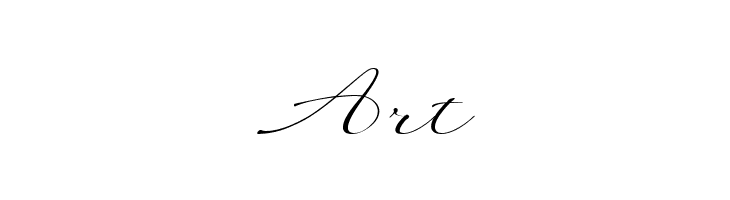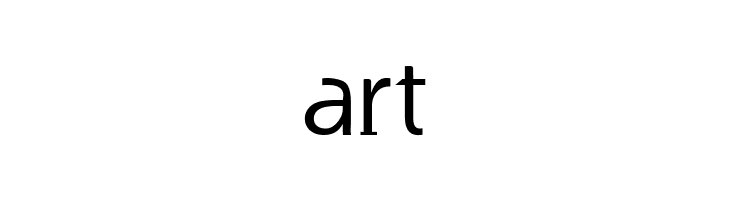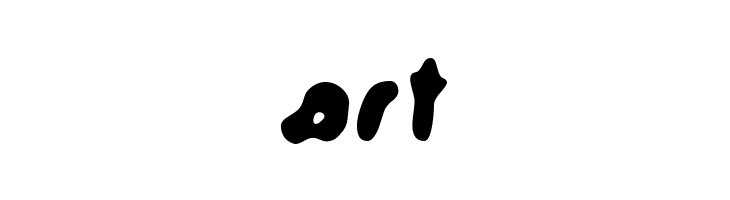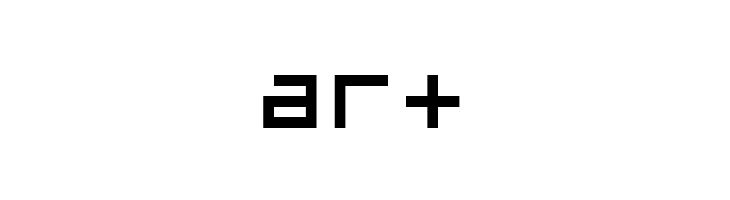
A delicate and elegant script font with flowing, interconnected letters and thin strokes.
A distressed, weathered font with a nautical, vintage feel.
A sleek, modern italic font with geometric precision and clean lines.
A modern, geometric font with clean lines and a minimalist style.
A modern, bold italic font with smooth curves and a dynamic slant.
A modern, geometric font with clean lines and rounded edges.